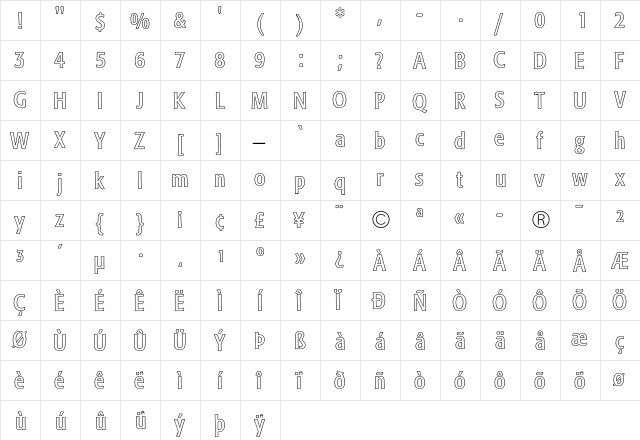
Formata Condensed Outline
Design Context for Formata Typeface
Formata brings ornamental detail and strong personality to headlines and identities, where visual impact matters more than quiet functionality.
Font Pairing: Pair with a clean neutral sans-serif for body copy to let Formata's character lead without overwhelming the composition.
Pro Tip: Use Formata exclusively at display sizes — it was designed to be seen, not read at length. Let a neutral companion handle body copy.